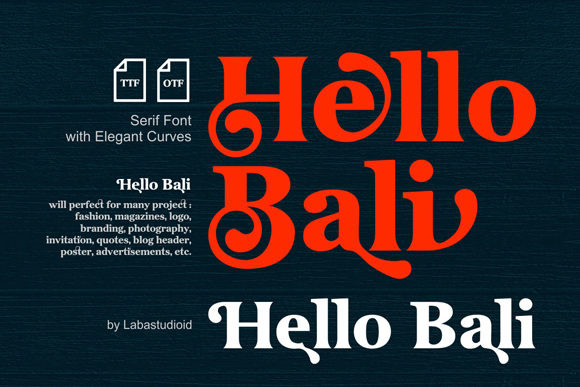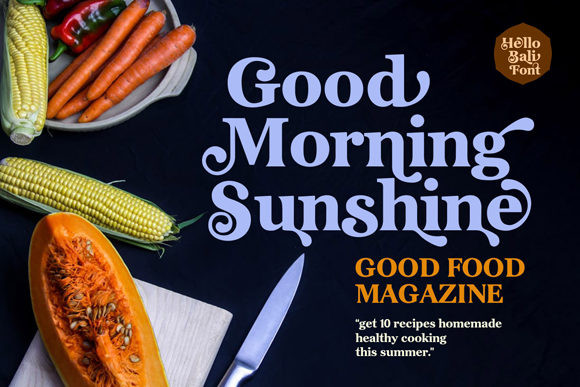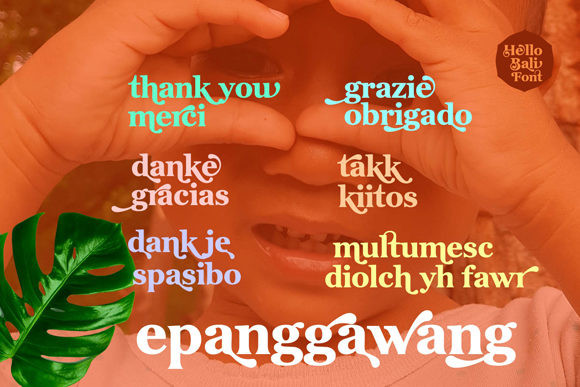
HelloBali Font
HelloBali is a bold and elegant serif font, carefully handcrafted to become a true favorite. This font will look outstanding in any context, whether it’s being used on busy backgrounds or as a standalone headline!